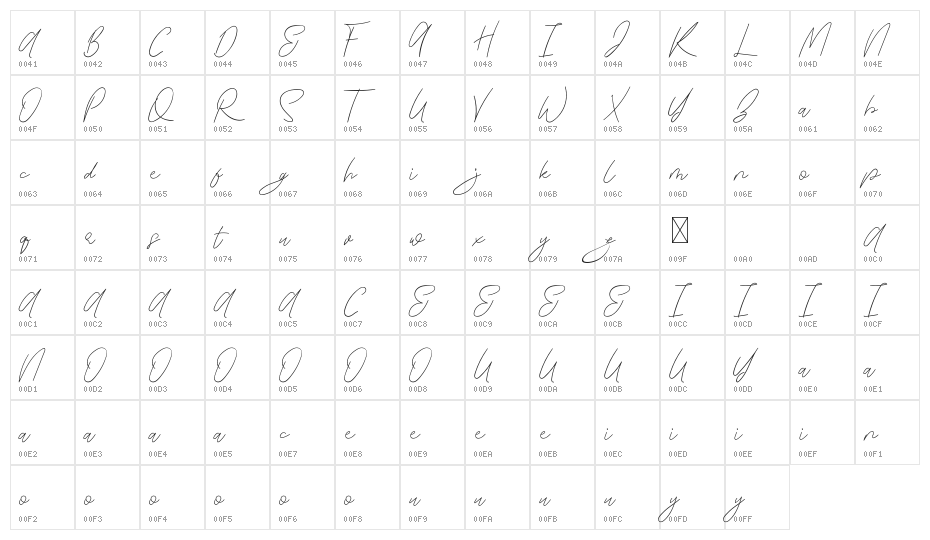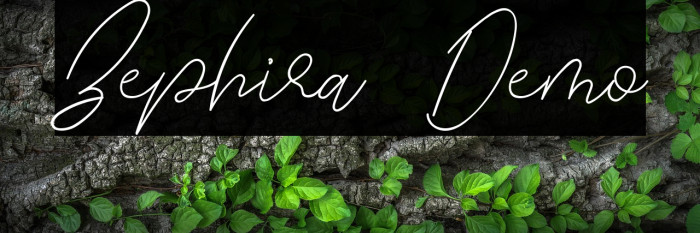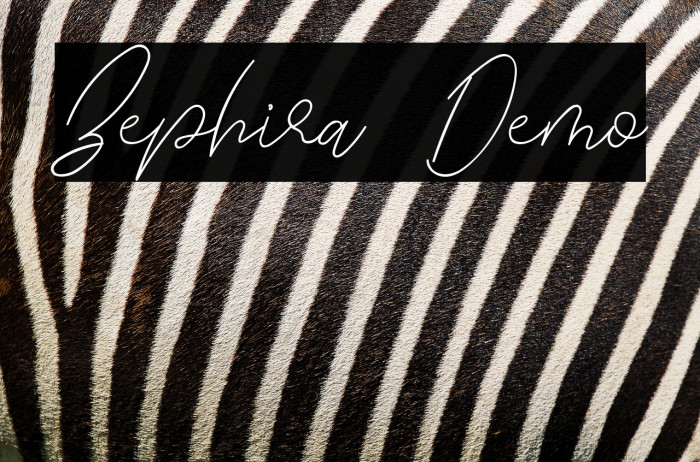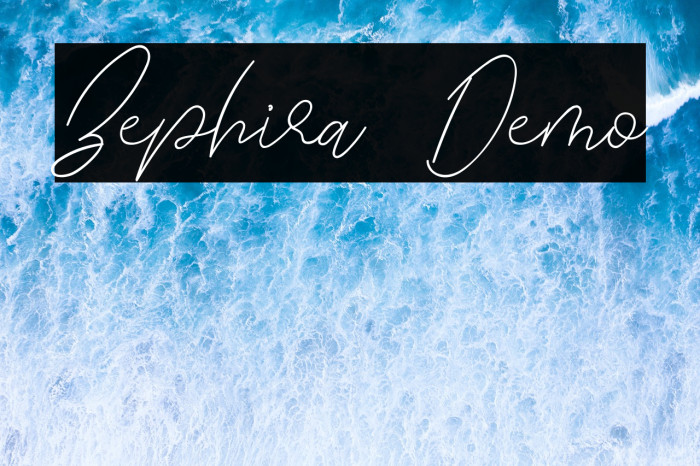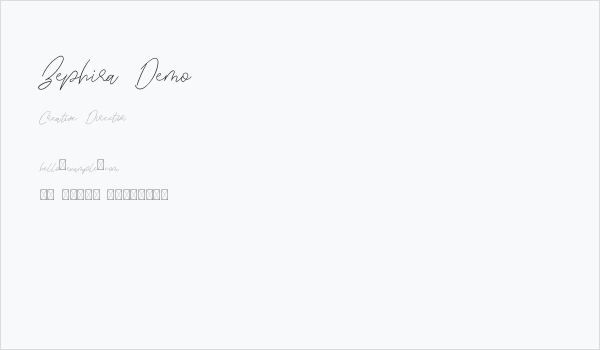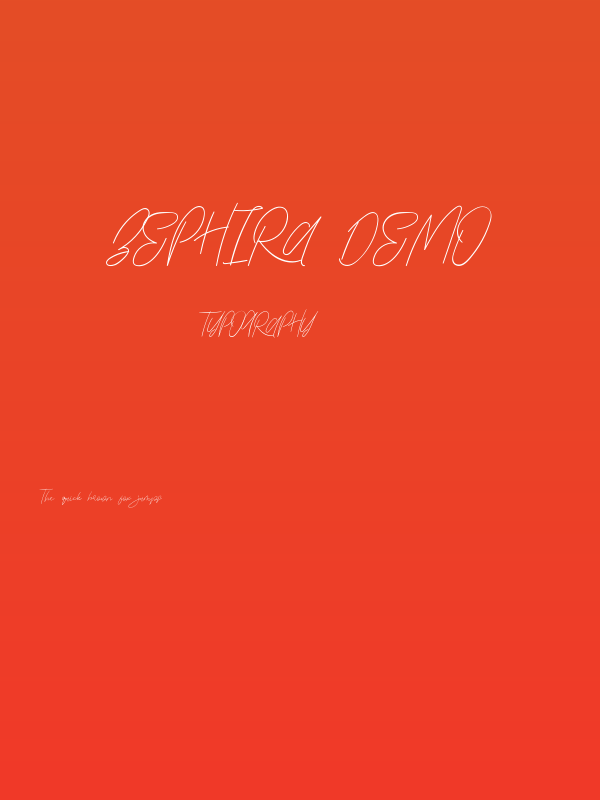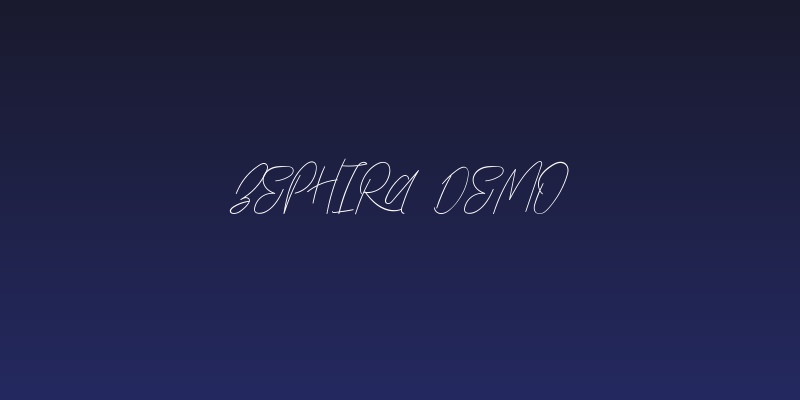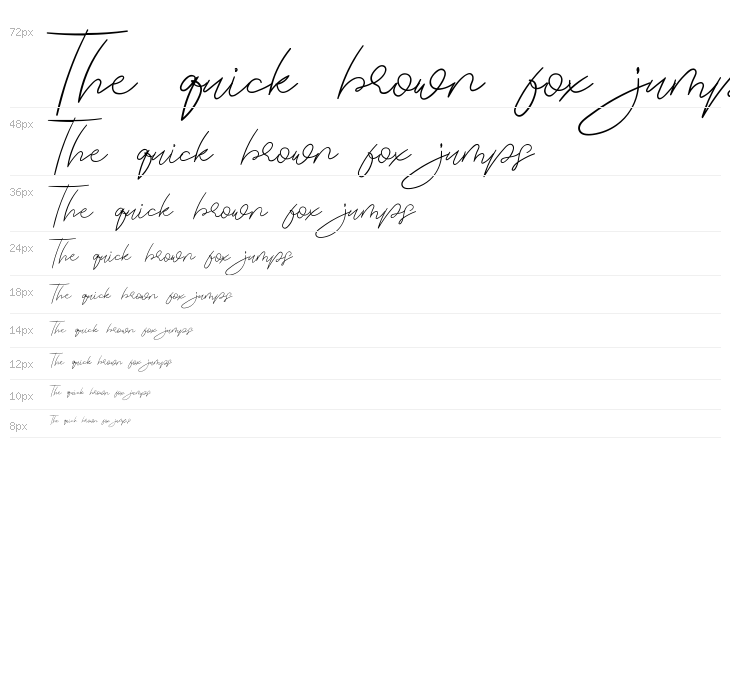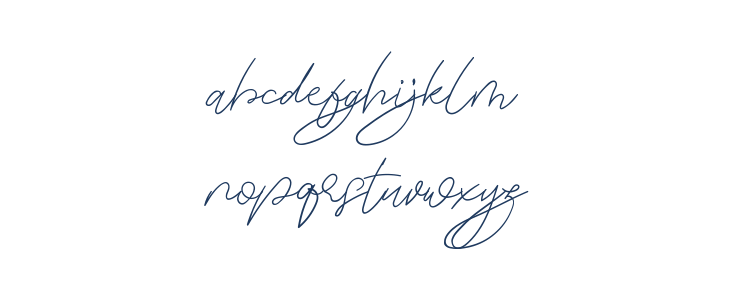
Zephira Demo Font
Zephira Demo Description
This font exudes an elegant and flowing script style, characterized by its thin, delicate strokes and graceful curves. The letters are interconnected, creating a seamless and fluid appearance that mimics natural handwriting. The uppercase letters are slightly more elaborate, with extended loops and swashes, while the lowercase letters maintain a consistent rhythm and balance. The overall design is airy and light, giving it a sophisticated and artistic feel. This font is perfect for adding a personal touch to any project, making it ideal for invitations, greeting cards, and branding materials where a touch of elegance is desired.
Overall StyleElegant
Use CaseInvitations, Artistic projects
Proposed ProjectsIdeal for wedding invitations, personal branding, greeting cards, and artistic projects.